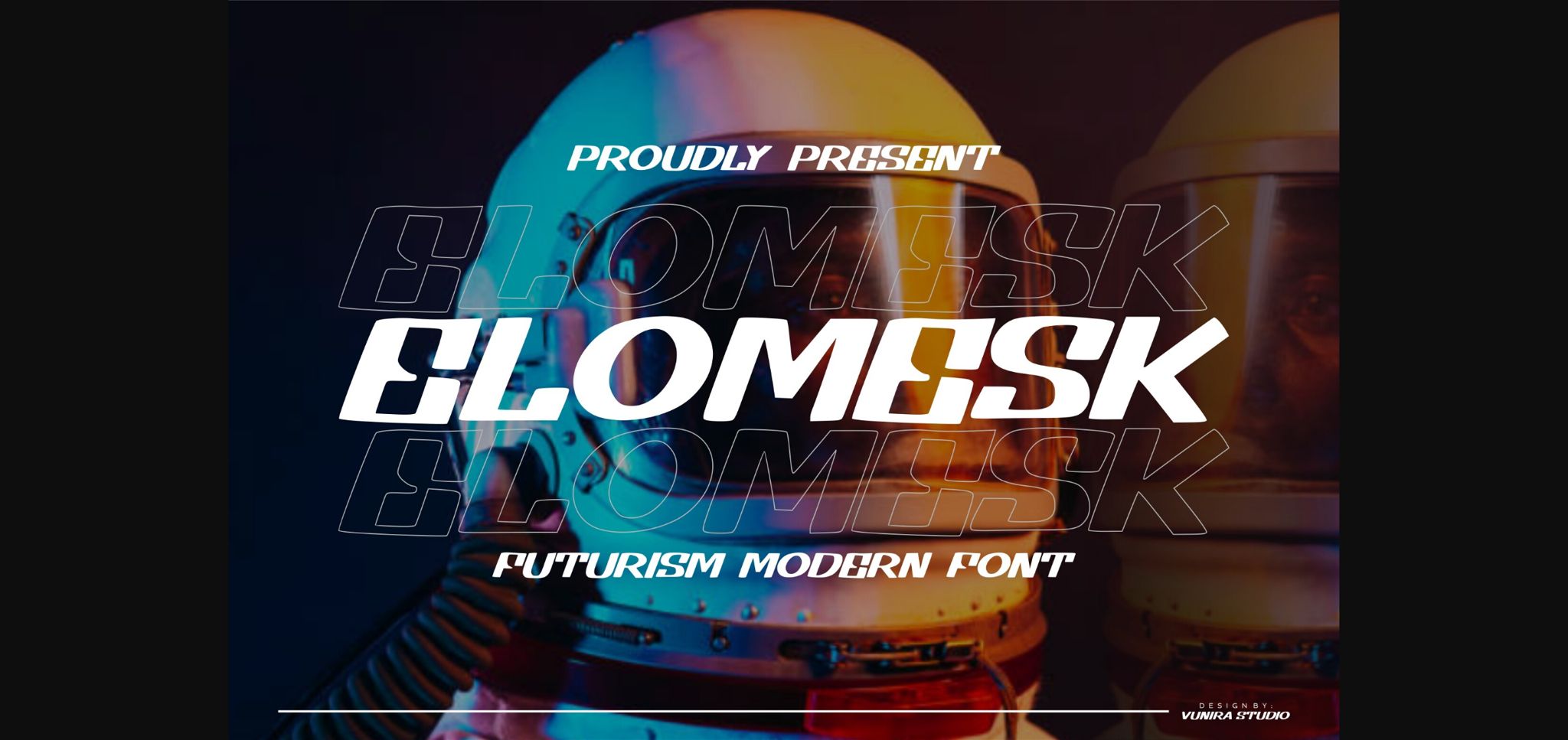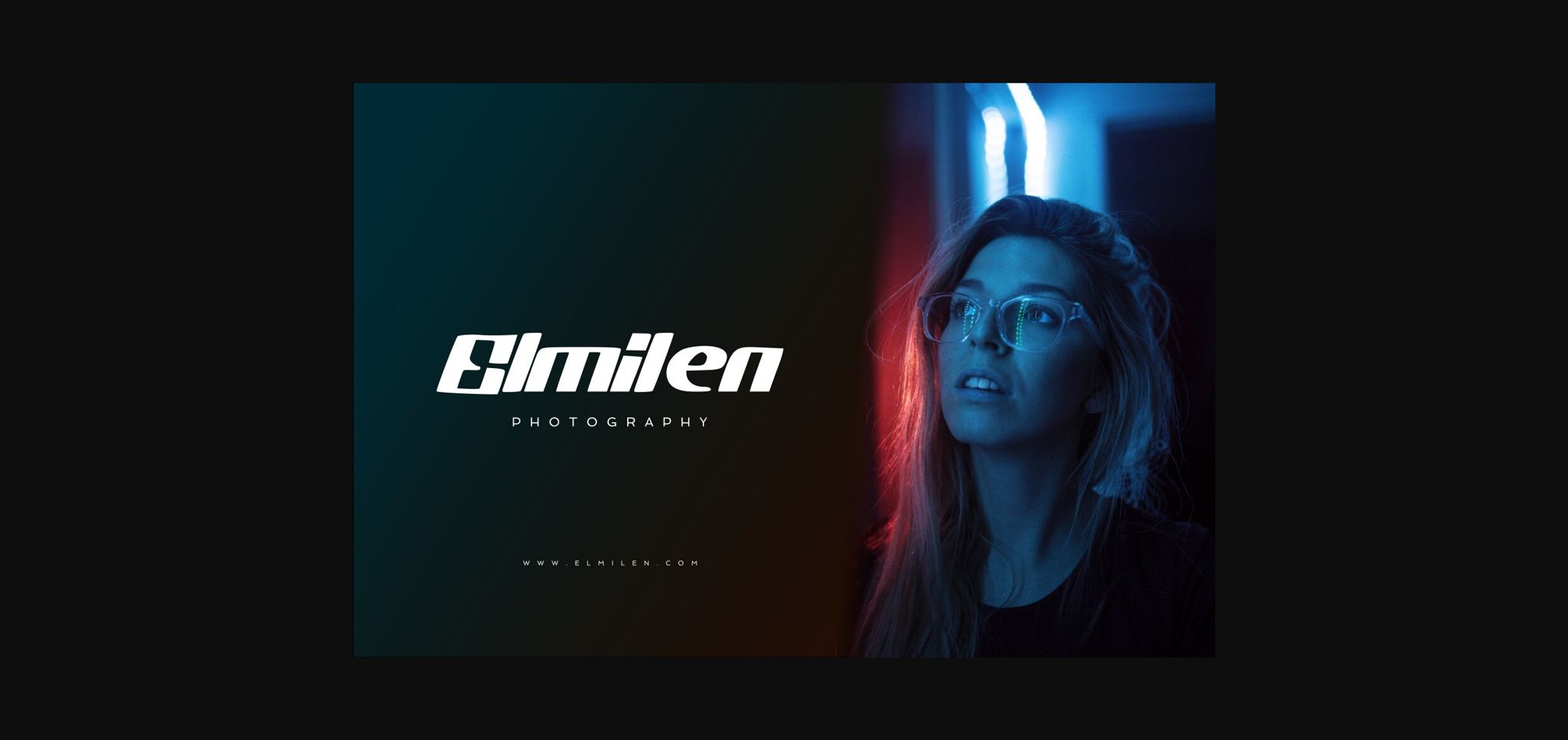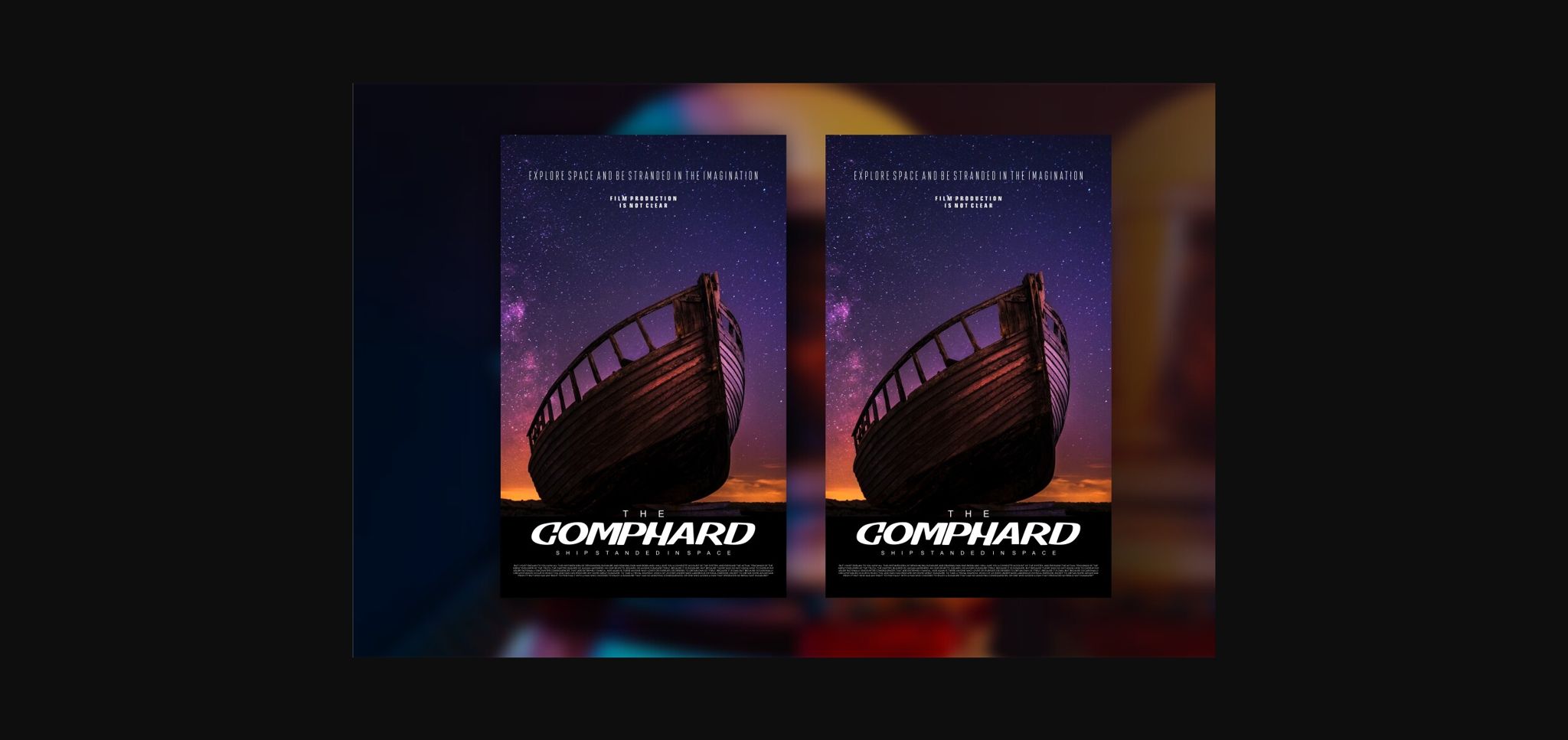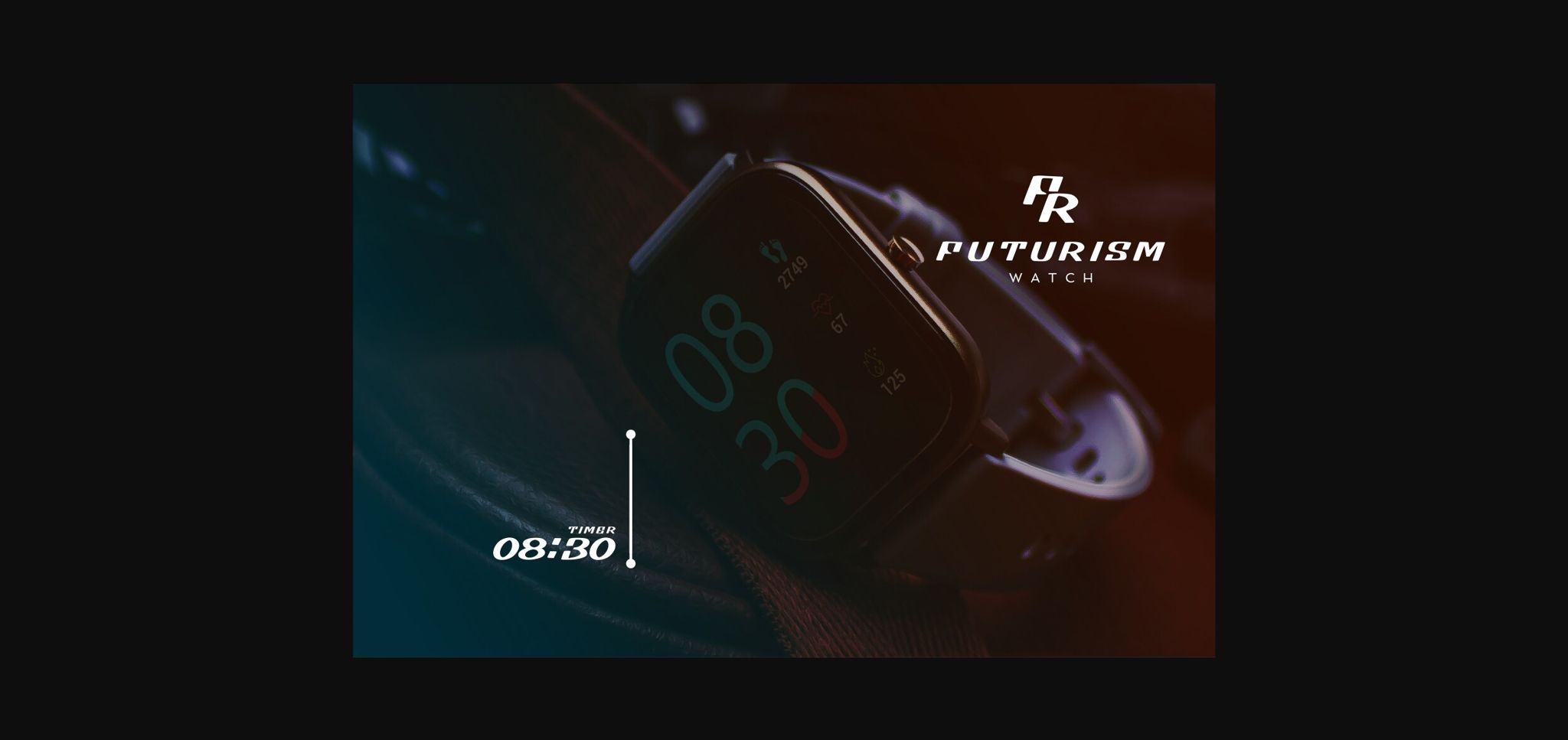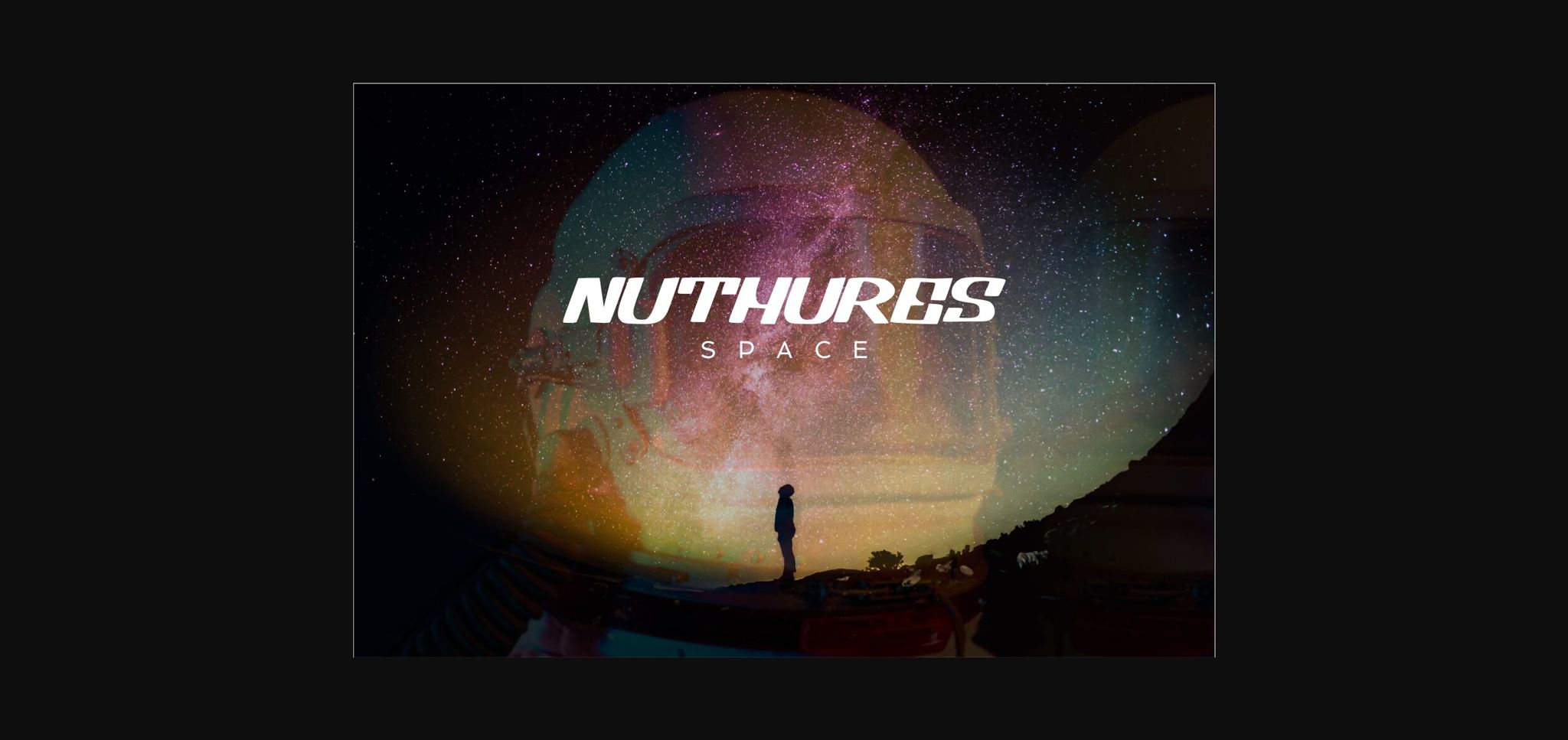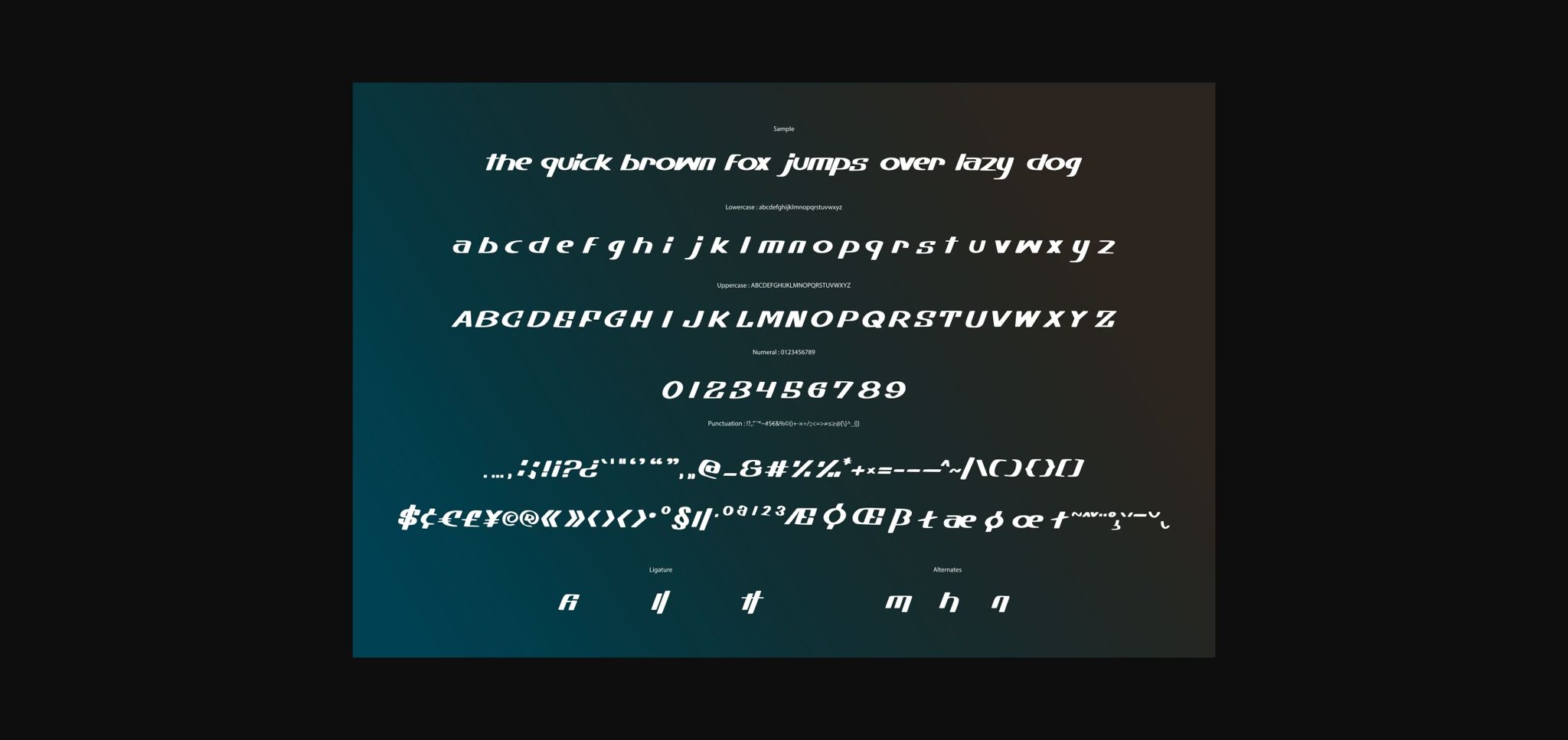
HomeSans Serif FontsElomesk Font Sans Serif Fonts Elomesk Font FacebookXPinterestWhatsApp 1 of 8 ... Elomesk Font Poster 2... Elomesk Font Poster 3... Elomesk Font Poster 4... Elomesk Font Poster 5... Elomesk Font Poster 6... Elomesk Font Poster 7... Elomesk Font Poster 8... About Elomesk Font Elomesk is a bold and assertive sans serif font. No matter the topic, this font will be an incredible asset to your fonts’ library, as it has the potential to elevate any creation. DOWNLOAD NOW People also explored Sweet Guava Font Arlen Script Font Evening Font Melodiously Script Font Innocent Girl Always Lovely Font Camisol Fabric Font Rainly Font Blessing Font 301 0 TagsElomeskElomesk Font Previous articleLastana FontNext articlePlatsten Font LEAVE A REPLY Cancel reply Comment: Please enter your comment! Name:* Please enter your name here Email:* You have entered an incorrect email address! Please enter your email address here Website: Save my name, email, and website in this browser for the next time I comment. Personal Use Free Sybil Green Personal Use Free Read more about this font Wintersoul Personal Use Free Read more about this font Rookie Mastering Personal Use Free Read more about this font Historise Personal Use Free Read more about this font BLOG Fonts That Capture the Spirit of New York City New York City is more than just a place—it’s an experience, a rhythm, a visual language... Free Fonts Risk: Why Free Fonts Can Be Dangerous for Designers How to Install and Use Fonts on Windows, macOS, and Web Projects Using Fonts in Digital Marketing: Tips to Strengthen Your Brand Identity